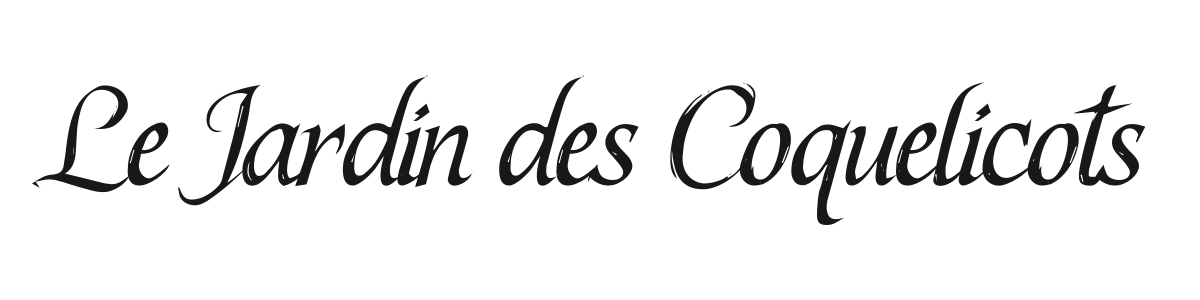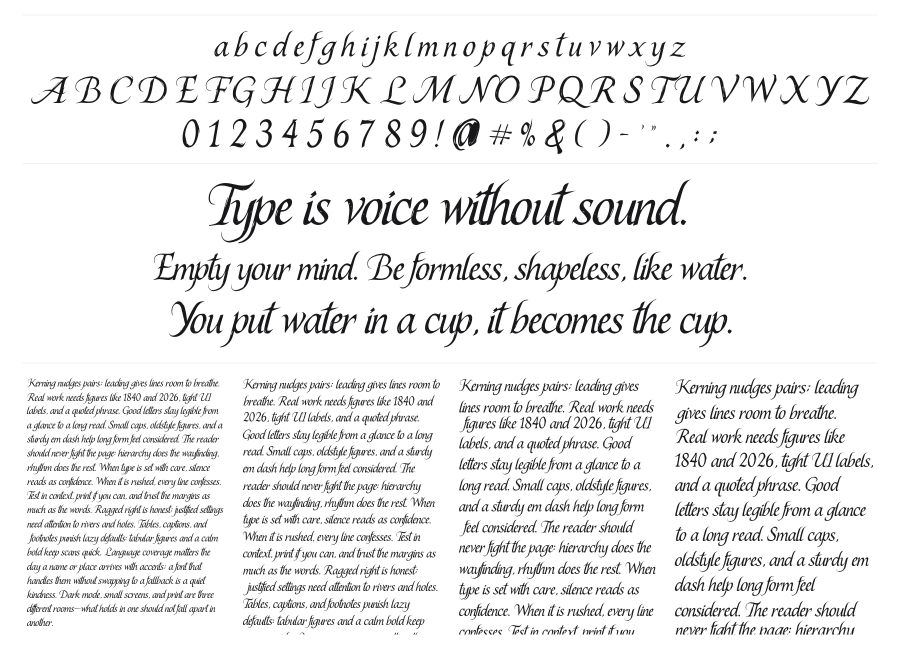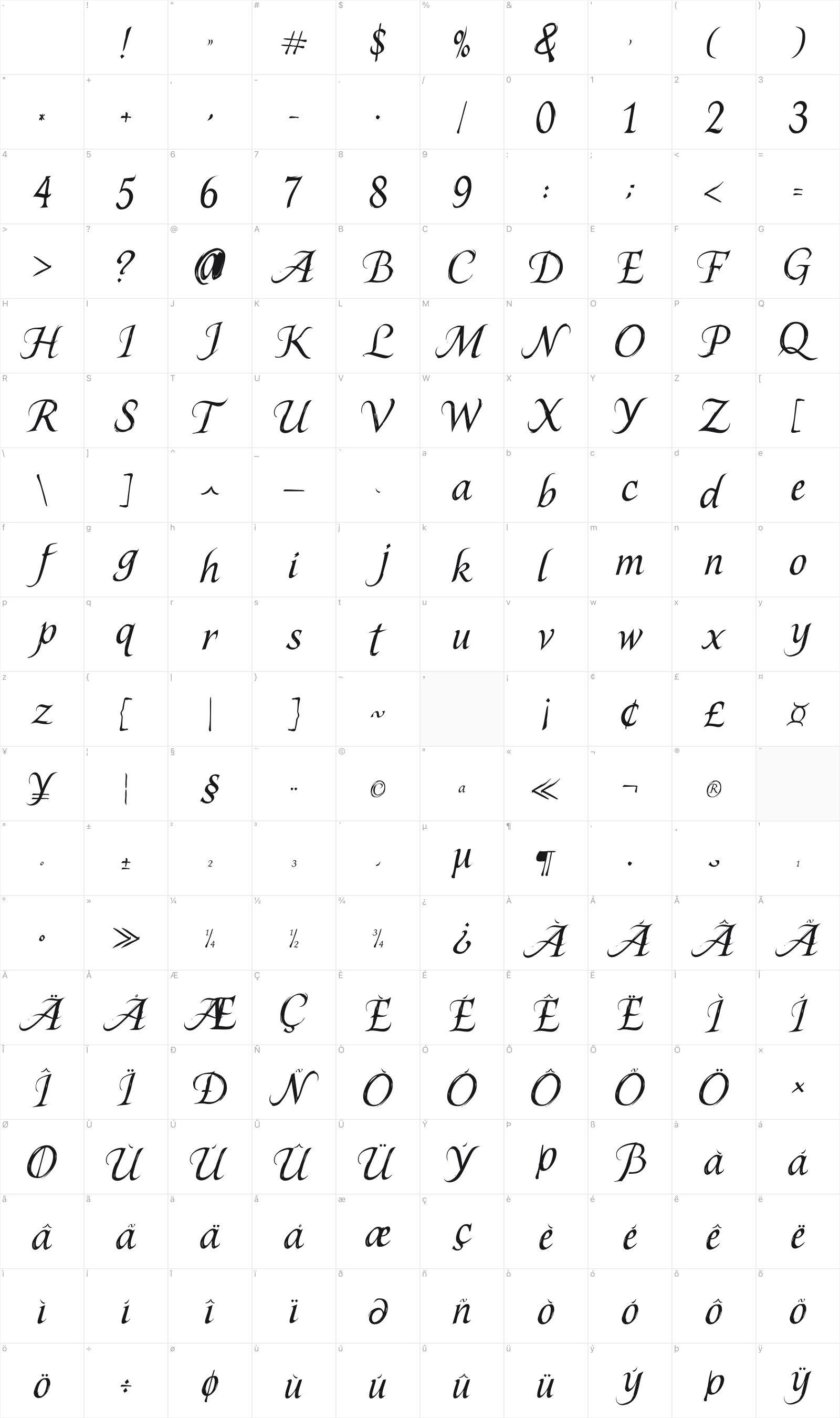
Le Jardin des Coquelicots
Le Jardin des Cocuelicots is an expressive brush script with the energy of fast, ink-loaded calligraphy. High stroke contrast between heavy downstrokes and thin hairlines gives it a dramatic, painterly quality, while the rough ink texture adds genuine handmade warmth. It thrives on posters, packaging labels, and editorial headlines where something loosely beautiful is called for.